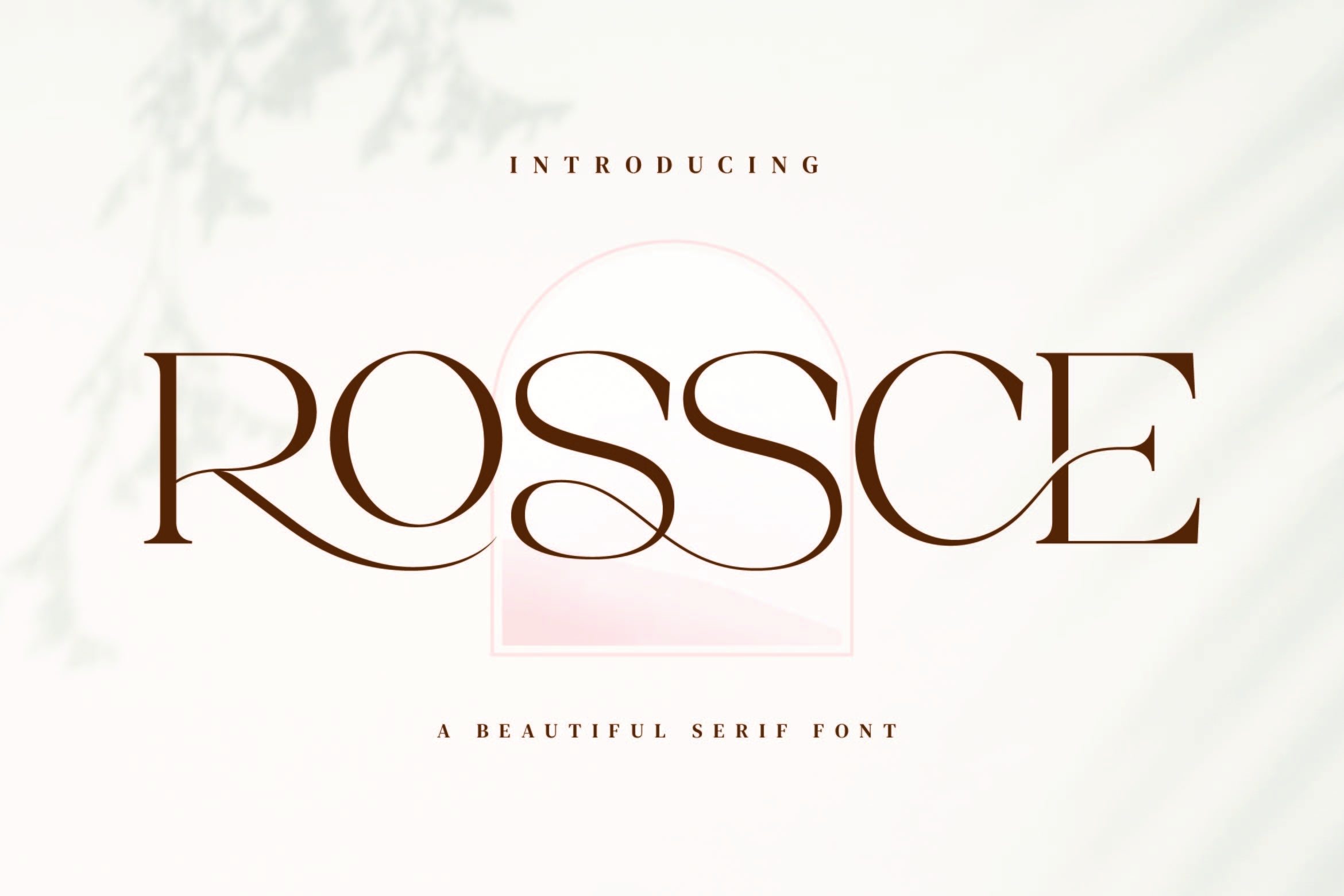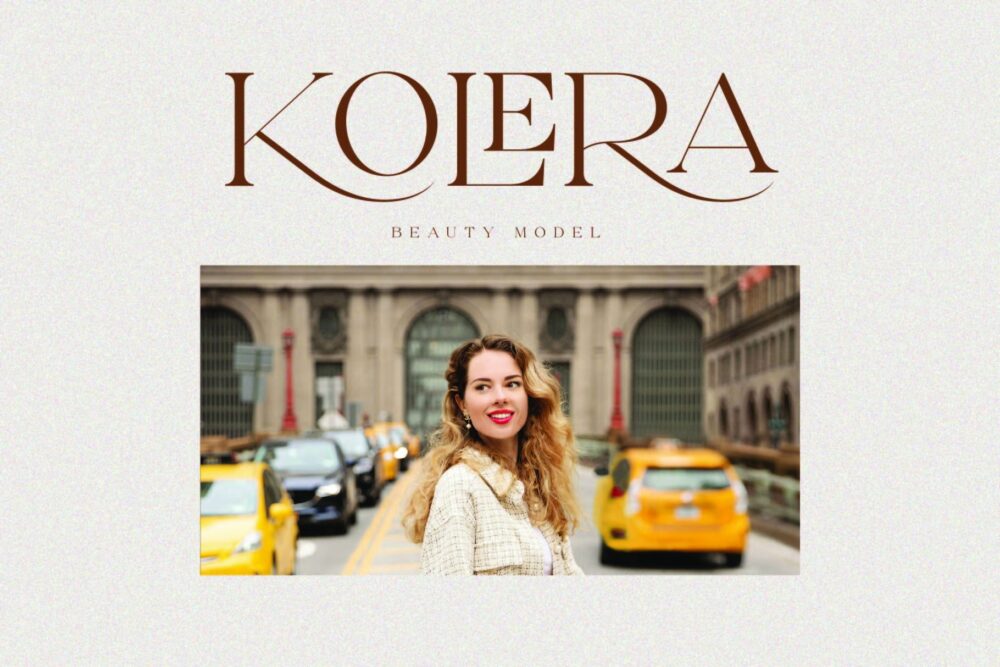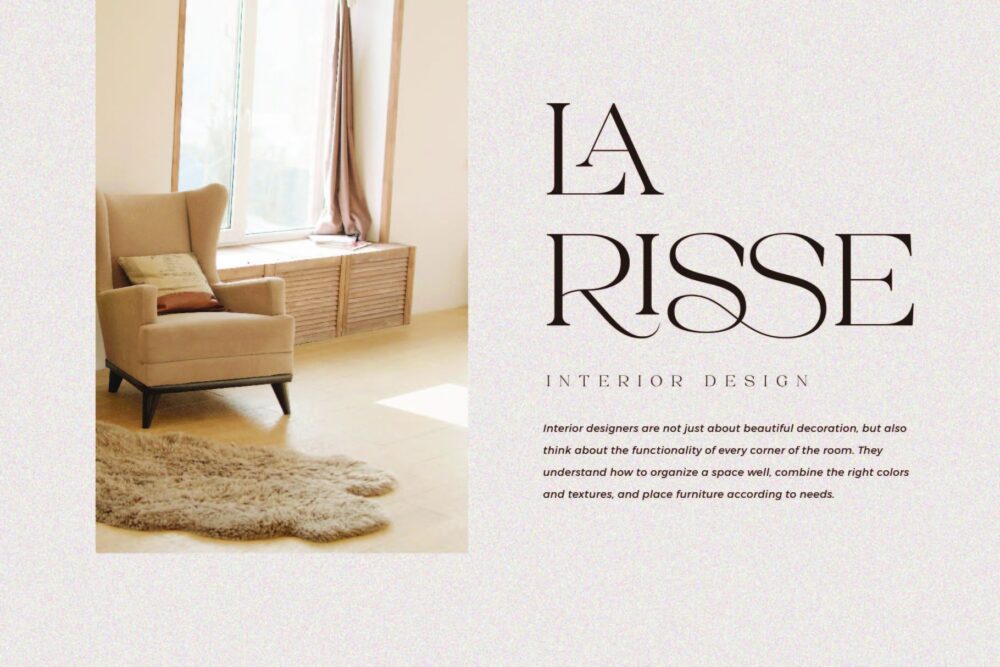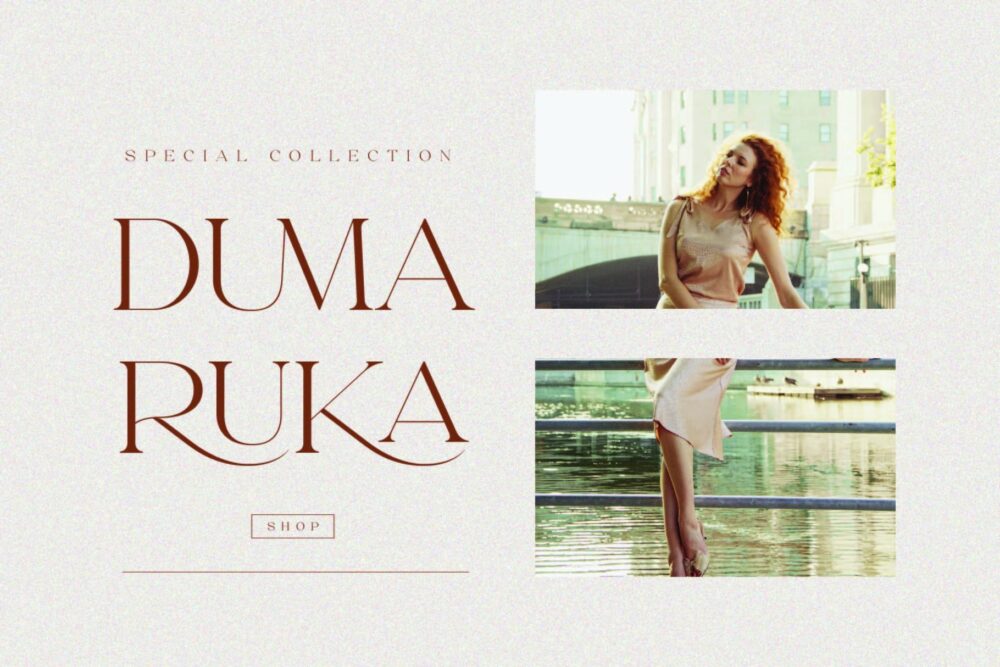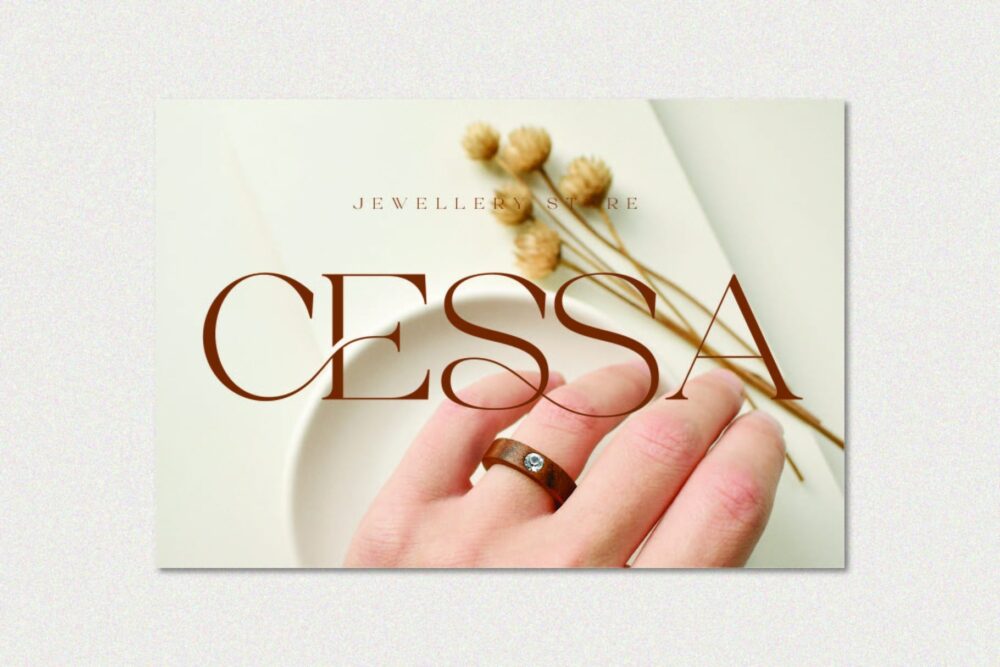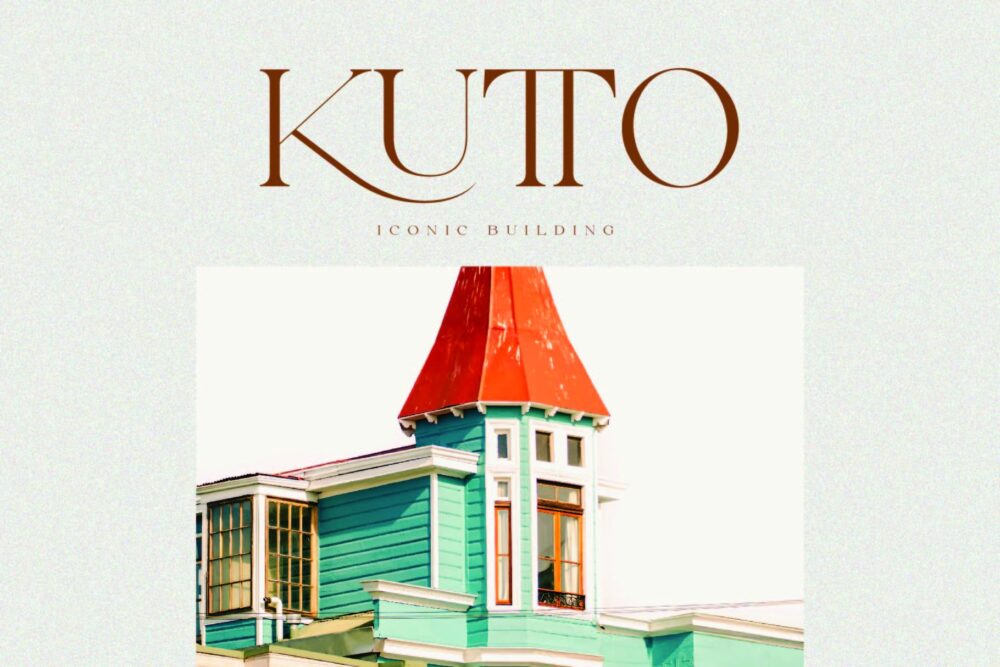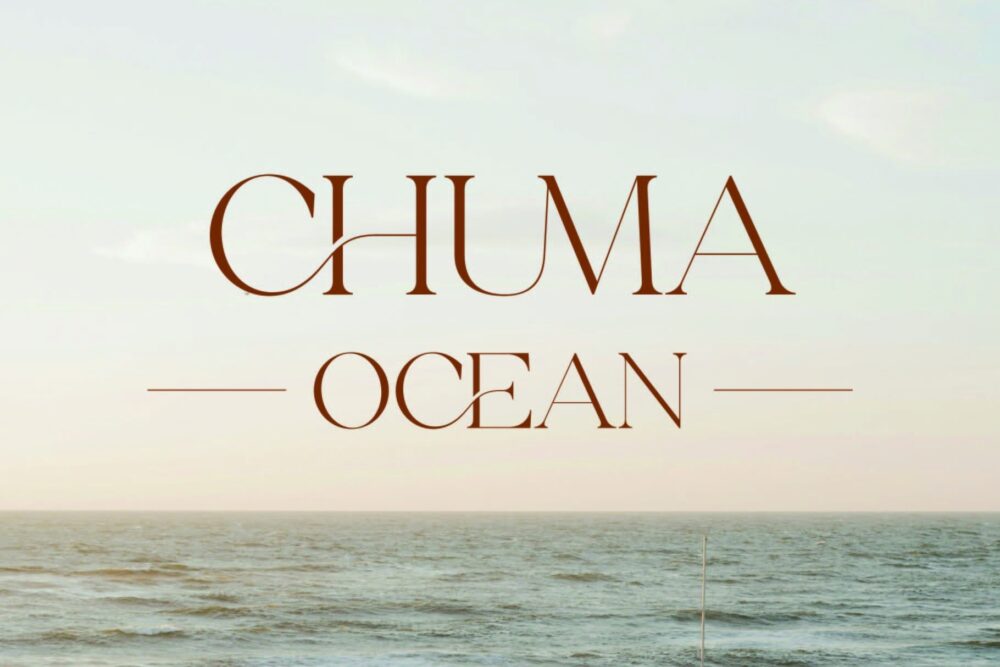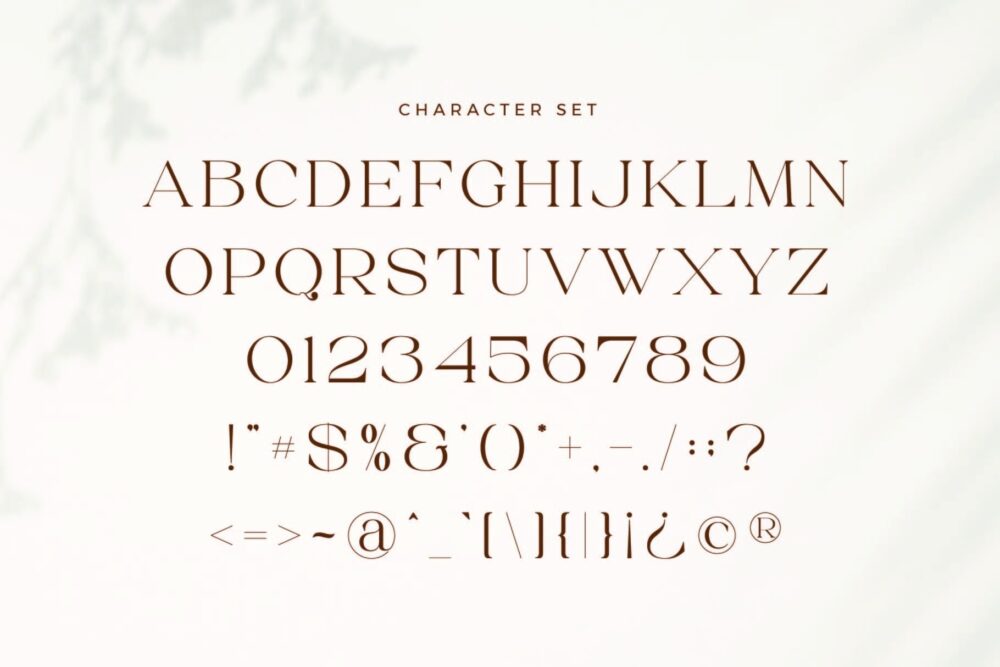
Rossce - Beautiful Serif Font
Rossce
Rossce Stylish Ligature Typeface, inspired by the famous minimalist logo perfect for the purposes of designing templates, brochures, videos, advertising branding, logos and more.